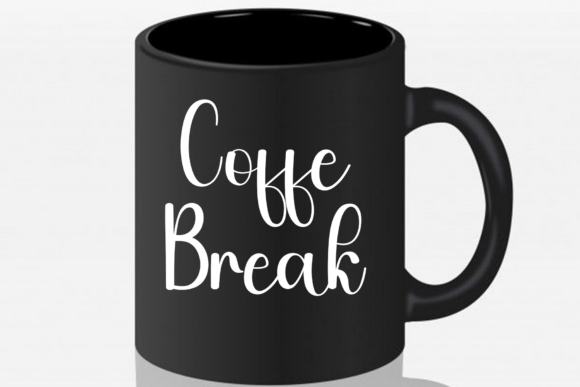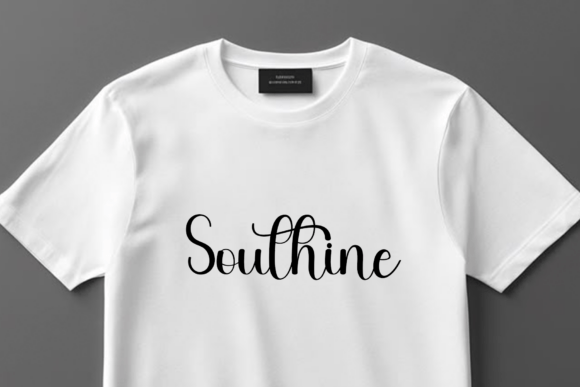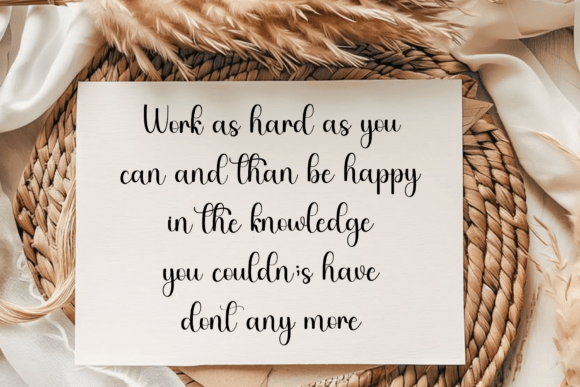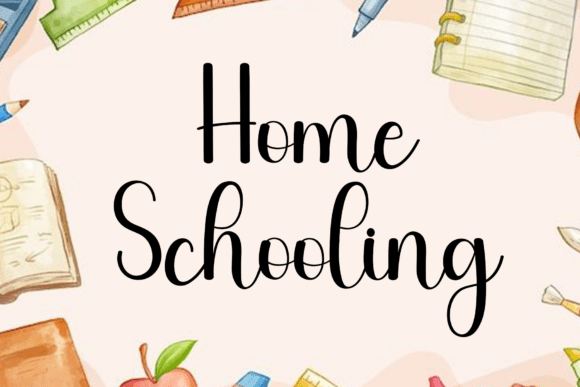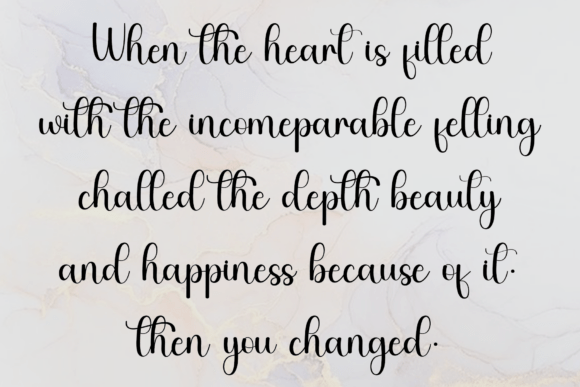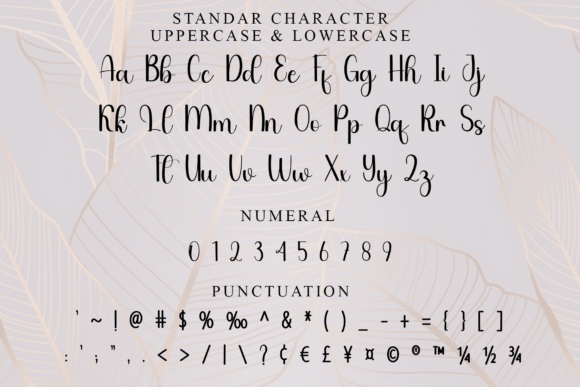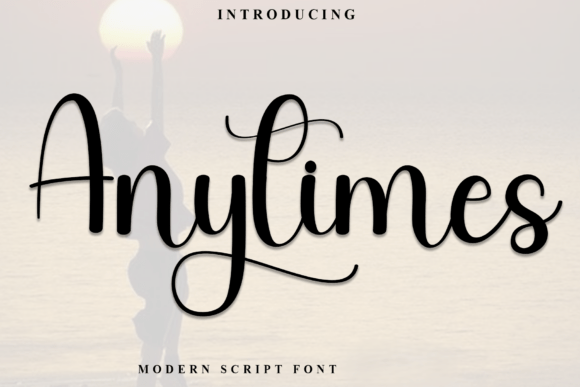
Introducing Anytimes Font: Elevate Your Designs with Elegance and Charm
In the world of typography, a font can make or break a design. For those seeking to infuse their projects with a touch of sophistication and grace, Anytimes Font emerges as a stellar choice. This beautiful, modern script font is crafted with elegance in mind, boasting swashes and flowing curves that can instantly elevate a variety of design endeavors. Whether you’re working on branding, wedding invitations, feminine logos, or social media posts, Anytimes Font is poised to bring a dash of charm and refinement to your creations.
The Essence of Anytimes Font
Anytimes Font is more than just a typeface; it’s a design statement. Its graceful, modern script style is meticulously designed to add a luxurious feel to any project. The font’s standout features include:
- Elegant Swashes: The inclusion of elegant swashes gives Anytimes Font a dynamic and sophisticated look, perfect for titles, headings, and any design element where you want to make a statement.
- Flowing Curves: The fluidity of its curves ensures that the text is not only readable but also visually appealing, adding a soft, organic feel to your designs.
- Versatility: Anytimes Font’s versatility shines through its adaptability to various design contexts. From the luxury of branding to the intimacy of wedding invitations, this font adjusts seamlessly.
Perfect Applications for Anytimes Font
The applications of Anytimes Font are vast, but here are some areas where it truly excels:
- Branding: For businesses aiming to project an image of elegance and sophistication, Anytimes Font can be a valuable asset. It’s perfect for logos, business cards, and marketing materials.
- Wedding Invitations: The font’s romantic and elegant feel makes it an ideal choice for wedding stationery, including invitations, save-the-date cards, and thank-you notes.
- Feminine Logos: Anytimes Font’s graceful and flowing design makes it a great fit for brands that want to convey femininity, elegance, and sophistication.
- Social Media Posts: Stand out on social media with stylish and elegant text. Anytimes Font can add a professional and luxurious touch to your posts and stories.
Why Choose Anytimes Font?
With so many fonts available, why should designers and crafters choose Anytimes Font for their projects? Here are a few compelling reasons:
- Unique and Memorable: Anytimes Font helps your designs stand out with its unique and memorable style, ensuring your message doesn’t get lost in the crowd.
- Easy to Read: Despite its elegant and cursive nature, Anytimes Font maintains a high level of readability, making it suitable for both headings and body text.
- Customizable: With its range of swashes and ligatures, Anytimes Font offers plenty of opportunities for customization, allowing you to tailor it to your project’s specific needs.
Tips for Using Anytimes Font Effectively
To maximize the impact of Anytimes Font, consider the following tips:
- Pair it Wisely: Combine Anytimes Font with complementary fonts to create visual interest. A sans-serif font for body text can provide a nice contrast.
- Play with Swashes: Don’t be afraid to experiment with the font’s swashes and ligatures. These elements can add a unique touch to your designs.
- Consider Size and Weight: Anytimes Font can be used across various sizes and weights. Experiment to find the perfect balance for your design.
Anytimes Font is a versatile and elegant script font that can bring a touch of sophistication and charm to any design project. Its combination of modern style, flowing curves, and elegant swashes makes it an ideal choice for designers and crafters looking to elevate their work. Whether you’re creating branding materials, wedding invitations, feminine logos, or social media posts, Anytimes Font is a valuable tool in your typographic arsenal. Embrace its beauty and let it transform your designs into memorable and impactful visual experiences.